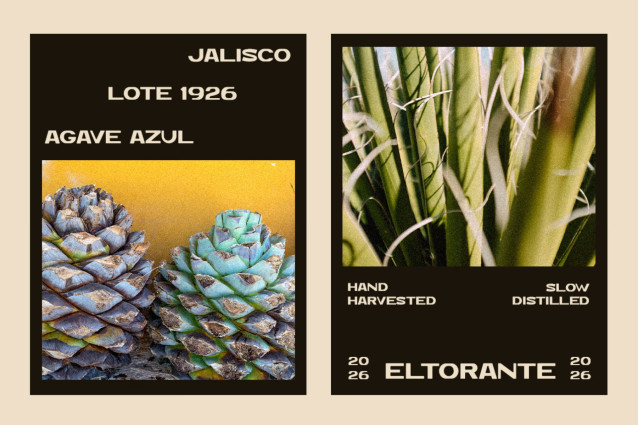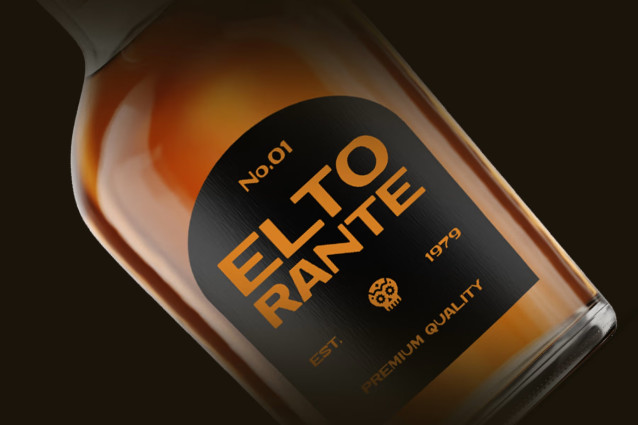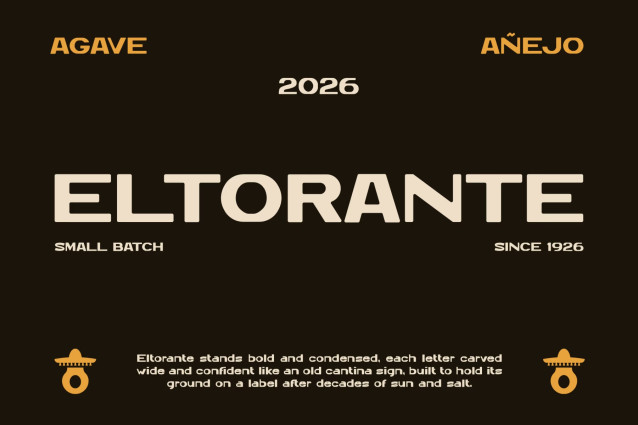
ELTORANTE Font
ELTORANTE – Vintage Agave Heritage Display
Vintage Font ELTORANTE brings the bold spirit of Mexican agave culture into contemporary typography. Inspired by vintage bottle labels, artisan spirits, handcrafted packaging, and traditional Western aesthetics, ELTORANTE combines sturdy geometric letterforms, rounded corners, compact proportions, and a distinctive display character. Because of this, it creates an authentic visual identity while keeping headlines clear and impactful.
Perfect for Bold Branding
ELTORANTE is ideal for graphic designers, branding studios, packaging designers, and creative entrepreneurs seeking a strong heritage-inspired look. For example, it works beautifully for tequila and mezcal branding, agave products, craft beverages, restaurant identities, bottle labels, vintage packaging, posters, badges, logos, and editorial graphics. In addition, its bold proportions help product names and headlines command attention. At the same time, the geometric construction keeps the overall appearance structured and contemporary.